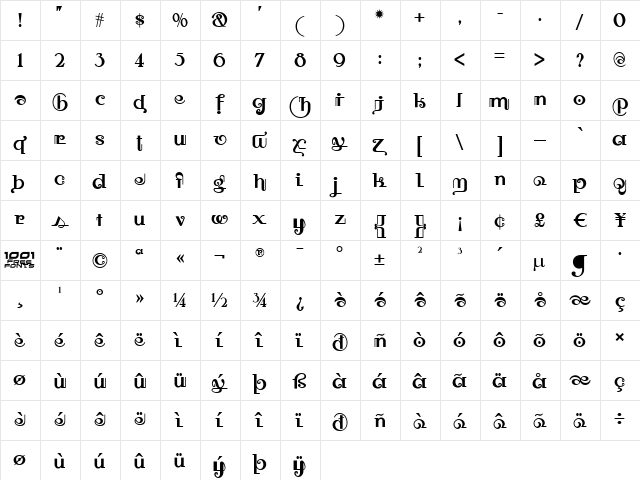
Owah Tagu Siam NF Regular
Design Context for Owah Tagu Siam NF Typeface
Owah Tagu Siam NF is a composed and adaptable typeface that performs quietly and consistently across a wide range of design contexts.